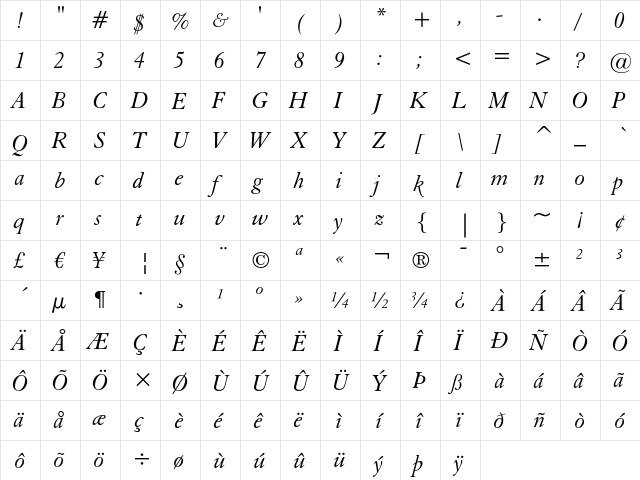
Elegant Garamond Italic
Design Context for Elegant Garamond Typeface
Elegant Garamond offers clean, dependable letterforms without strong stylistic allegiance, making it a practical choice for designers who need flexibility. The slanted form adds forward momentum and visual energy.
Pro Tip: Try Elegant Garamond for annotation and caption copy alongside an upright companion — the contrast in angle creates a dynamic but ordered typographic system.